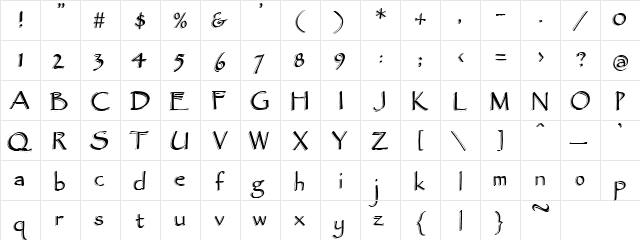
PC Kennedy Regular
Design Context for PC Kennedy Typeface
PC Kennedy is a composed and adaptable typeface that performs quietly and consistently across a wide range of design contexts.